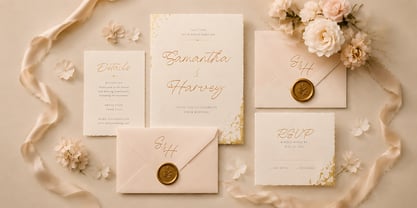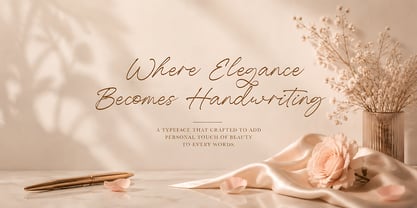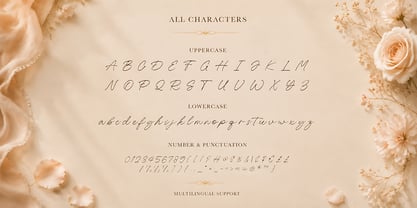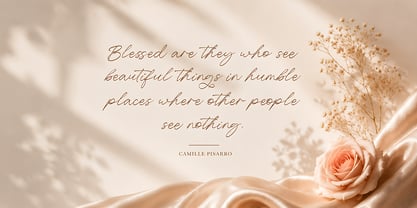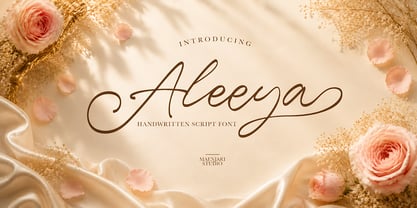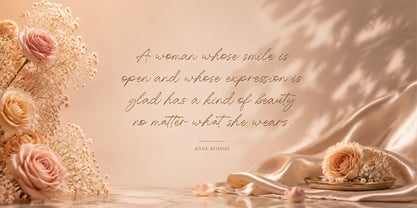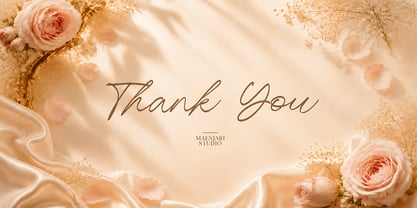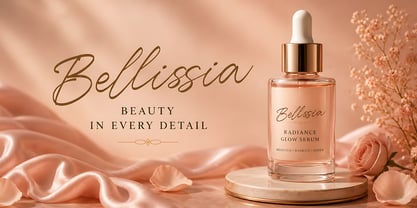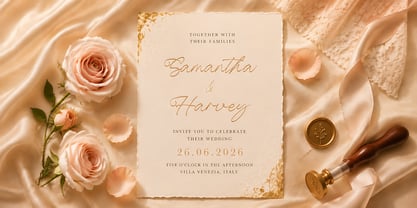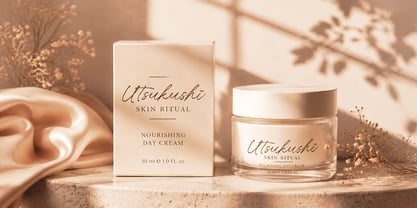
MJ Aleeya
by Maenjari Std
The MJ Aleeya Font Family was designed by Maenjari and published by Maenjari Std. MJ Aleeya contains 1 styles. More about this family
Aleey is a premium handwritten script font characterized by its slender, elongated ascenders and natural calligraphic movement. Drawing inspiration from modern fine-art handwriting, Aleeya bridges the gap between high-end digital typography and traditional calligraphy.
The font's light, consistent stroke width is carefully balanced to ensure legibility at smaller sizes, making it an excellent candidate for luxury cosmetic labels, editorial subheadings, and complete wedding stationery suites. The organic flow of the ligatures mimics genuine cursive handwriting, providing a seamless, sophisticated typographic texture.
Aleeya is technically optimized with full multi-language capabilities, a standard set of numerals, and precise punctuation. Implement this script into your brand identity system to evoke a calm, refined, and luxurious aesthetic.